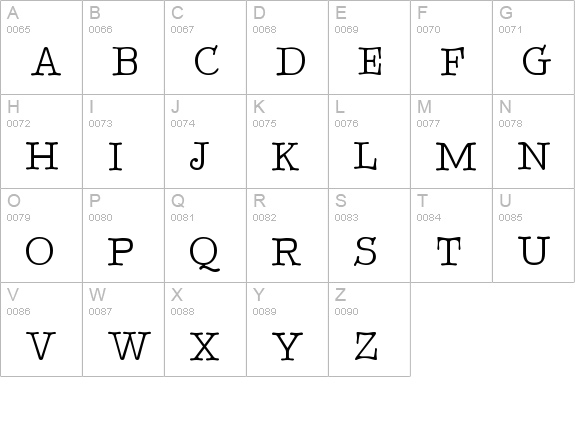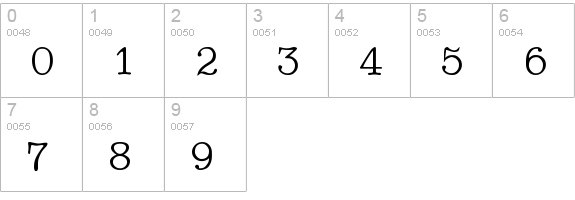
BetterTypeRight Plain font is a modern and versatile typeface that is perfect for a wide range of design projects. This clean and simple font features a sleek and professional look, making it ideal for both digital and print applications. With its balanced proportions and clean lines, BetterTypeRight Plain font exudes a sense of sophistication and elegance. What's even better is that BetterTypeRight Plain font is available for free download at FontsMarket.com. This means you can easily access this high-quality font without any cost, making it a great choice for designers and creatives looking to enhance their projects without breaking the bank. Don't miss out on this opportunity to add BetterTypeRight Plain font to your font collection today!